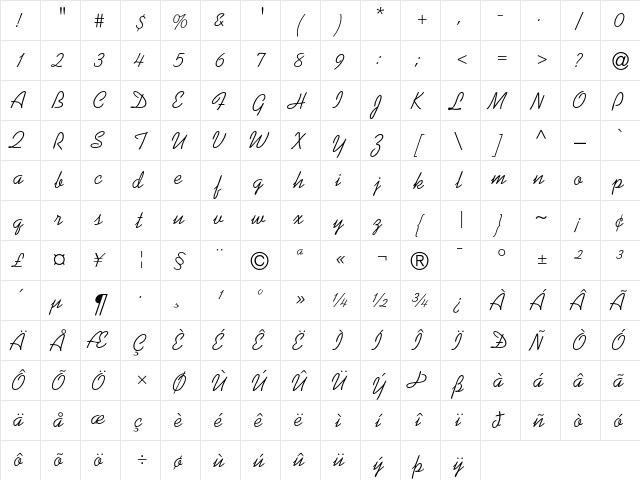
Kaufmann Regular
Design Context for Kaufmann Typeface
Kaufmann takes a measured approach to typography — its balanced proportions and neutral character make it a reliable workhorse for both digital and print work.